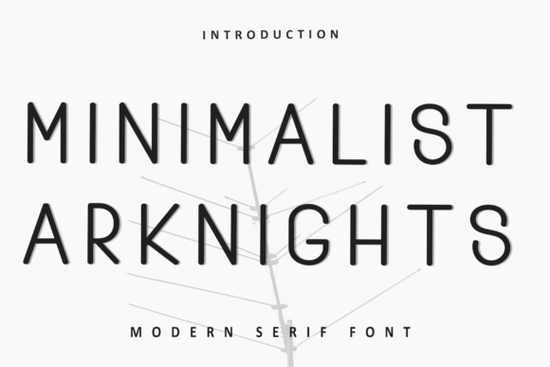
Minimalist Arknights Font is a versatile typeface designed for those who appreciate clean, modern aesthetics. Whether you're working on a digital project or preparing print materials, this font brings a sense of order and sophistication to your designs. Its restrained style makes it ideal for a wide range of applications, from branding to editorial layouts.
The font features uniform, medium-weight monoline strokes that give it a sleek and professional look. Rounded terminals add a touch of softness, while the geometric proportions ensure readability at various sizes. The design is inspired by the refined, dystopian aesthetic seen in tactical gaming interfaces, making it a great choice for tech startups, architectural firms, and creative professionals looking for a modern edge.
One of the standout features of Minimalist Arknights Font is its ability to blend into a variety of design contexts without drawing too much attention. This makes it perfect for headers, subheadings, and UI elements where clarity is key. The font’s stark white canvas and faint architectural silhouette add a subtle visual interest that enhances the overall composition without complicating it.
When choosing a font for your project, consider how it will interact with other design elements. Minimalist Arknights Font is best used in situations where a calm, professional tone is needed. It pairs well with other sans-serif fonts and can be used as a standalone element or part of a larger typographic hierarchy. For more ideas on how to use this font effectively, you might want to look into writable fonts or Kynetic Font.
Whether you're creating a website, designing a logo, or working on a print project, Minimalist Arknights Font provides a reliable and stylish option. Its balanced structure and clean appearance make it easy to work with, while its unique design elements add a touch of personality. If you're looking for a font that combines functionality with a modern aesthetic, this could be a great addition to your collection.